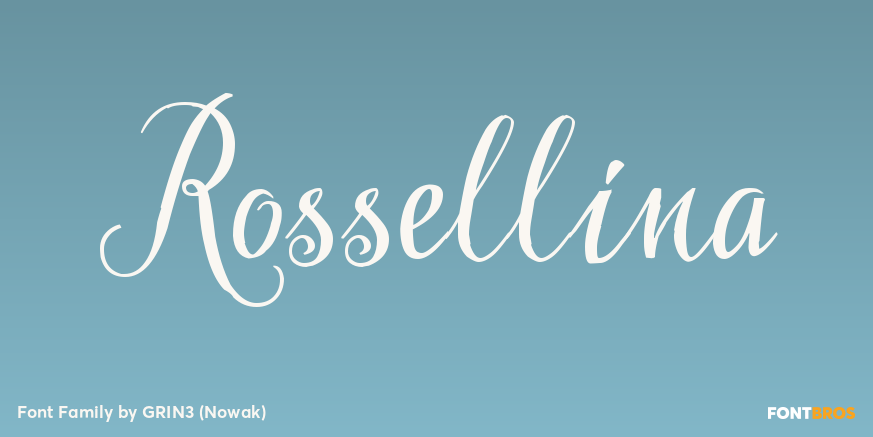
Rossellina
About Rossellina
Rosselina is a handwritten, fully connected script with ligatures and contextual alternates to help with flow and readability. It can be used for invitations, greeting cards, posters, advertising, weddings, books, menus etc. Every lowercase letter has…